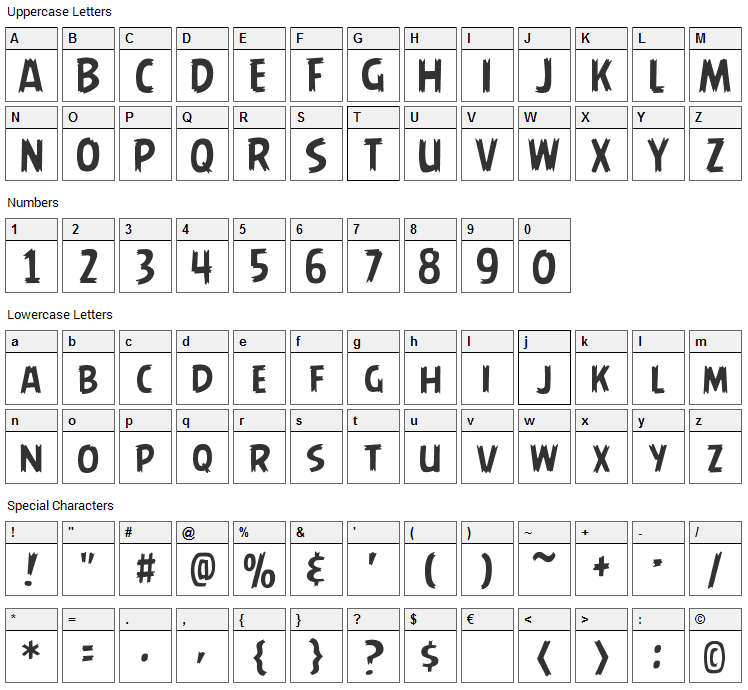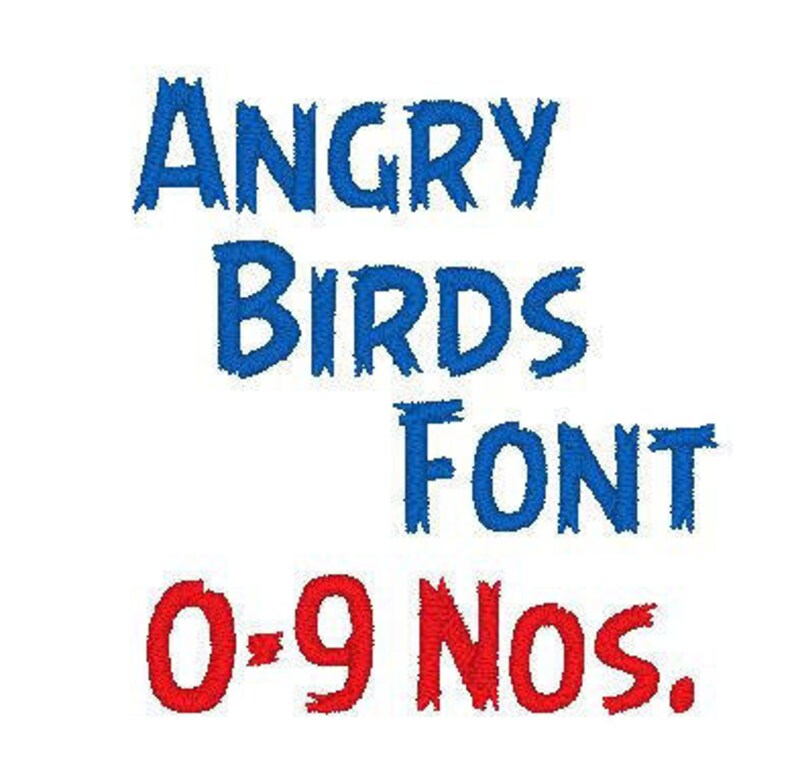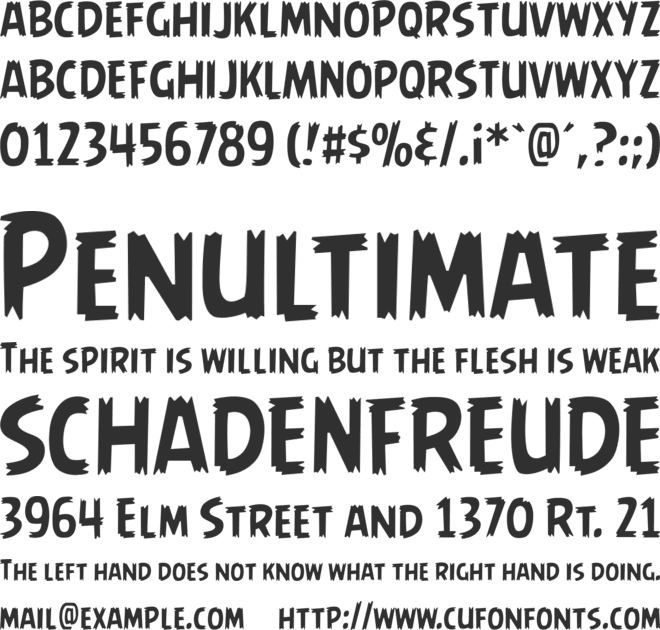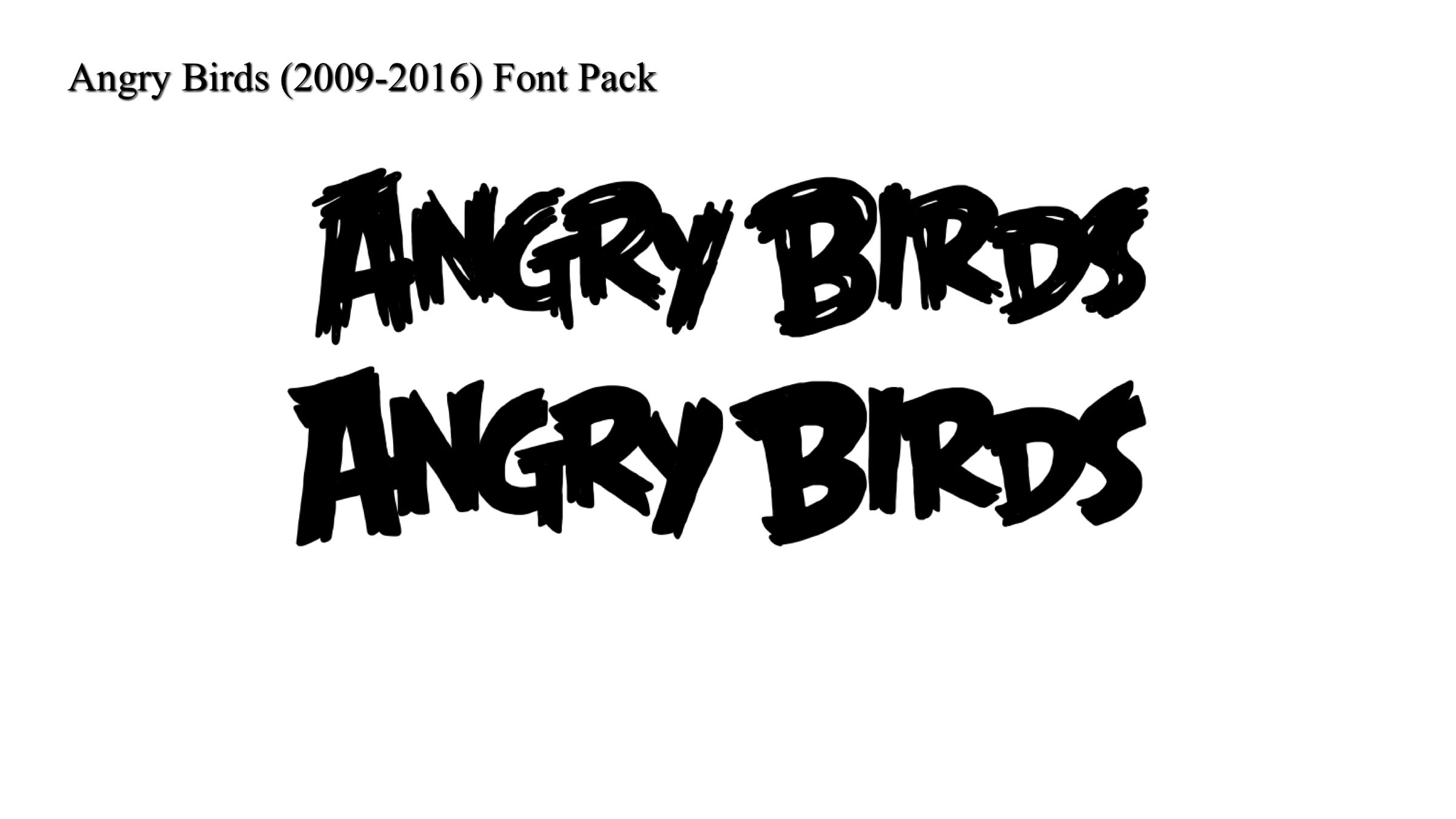
Angry Birds Font - The font is free to use and. Angry birds font | dafont.com english français español deutsch italiano português. The angry birds logo features an angry bird head and the logotype in comic style lettering, which resembles a font called “feast of flesh” designed by nate piekos in 2005. Download free angry birds fonts. You can generate your own custom designs based on the angry birds movies or the original video game by rovio. Discover and customize the font angry birds and other similar fonts, ready to share in facebook and twitter.
The angry birds logo features an angry bird head and the logotype in comic style lettering, which resembles a font called “feast of flesh” designed by nate piekos in 2005. Download free angry birds fonts. Angry birds font | dafont.com english français español deutsch italiano português. Discover and customize the font angry birds and other similar fonts, ready to share in facebook and twitter. You can generate your own custom designs based on the angry birds movies or the original video game by rovio. The font is free to use and.
The angry birds logo features an angry bird head and the logotype in comic style lettering, which resembles a font called “feast of flesh” designed by nate piekos in 2005. The font is free to use and. Download free angry birds fonts. Discover and customize the font angry birds and other similar fonts, ready to share in facebook and twitter. Angry birds font | dafont.com english français español deutsch italiano português. You can generate your own custom designs based on the angry birds movies or the original video game by rovio.
Angry Birds Movie font
Download free angry birds fonts. The font is free to use and. Angry birds font | dafont.com english français español deutsch italiano português. The angry birds logo features an angry bird head and the logotype in comic style lettering, which resembles a font called “feast of flesh” designed by nate piekos in 2005. Discover and customize the font angry birds.
The font is free to use and. The angry birds logo features an angry bird head and the logotype in comic style lettering, which resembles a font called “feast of flesh” designed by nate piekos in 2005. Discover and customize the font angry birds and other similar fonts, ready to share in facebook and twitter. You can generate your own.
Discover and customize the font angry birds and other similar fonts, ready to share in facebook and twitter. The angry birds logo features an angry bird head and the logotype in comic style lettering, which resembles a font called “feast of flesh” designed by nate piekos in 2005. You can generate your own custom designs based on the angry birds.
Download free angry birds fonts. Discover and customize the font angry birds and other similar fonts, ready to share in facebook and twitter. The font is free to use and. The angry birds logo features an angry bird head and the logotype in comic style lettering, which resembles a font called “feast of flesh” designed by nate piekos in 2005..
Angry birds font | dafont.com english français español deutsch italiano português. The angry birds logo features an angry bird head and the logotype in comic style lettering, which resembles a font called “feast of flesh” designed by nate piekos in 2005. Discover and customize the font angry birds and other similar fonts, ready to share in facebook and twitter. You.
Angry Birds Font
Angry birds font | dafont.com english français español deutsch italiano português. You can generate your own custom designs based on the angry birds movies or the original video game by rovio. The font is free to use and. Discover and customize the font angry birds and other similar fonts, ready to share in facebook and twitter. The angry birds logo.
Angry Birds font install Open Type + Angry Birds font SVG / Angry Birds
The angry birds logo features an angry bird head and the logotype in comic style lettering, which resembles a font called “feast of flesh” designed by nate piekos in 2005. The font is free to use and. Discover and customize the font angry birds and other similar fonts, ready to share in facebook and twitter. Download free angry birds fonts..
Angry Birds Font Generator
Download free angry birds fonts. The angry birds logo features an angry bird head and the logotype in comic style lettering, which resembles a font called “feast of flesh” designed by nate piekos in 2005. Angry birds font | dafont.com english français español deutsch italiano português. The font is free to use and. You can generate your own custom designs.
Angry Birds Movie Font FZ Fonts FontSpace
You can generate your own custom designs based on the angry birds movies or the original video game by rovio. Download free angry birds fonts. The angry birds logo features an angry bird head and the logotype in comic style lettering, which resembles a font called “feast of flesh” designed by nate piekos in 2005. Angry birds font | dafont.com.
Angry Birds (20092016) Font Pack by Charlieaat on DeviantArt
The angry birds logo features an angry bird head and the logotype in comic style lettering, which resembles a font called “feast of flesh” designed by nate piekos in 2005. You can generate your own custom designs based on the angry birds movies or the original video game by rovio. Angry birds font | dafont.com english français español deutsch italiano.
You Can Generate Your Own Custom Designs Based On The Angry Birds Movies Or The Original Video Game By Rovio.
The font is free to use and. Angry birds font | dafont.com english français español deutsch italiano português. The angry birds logo features an angry bird head and the logotype in comic style lettering, which resembles a font called “feast of flesh” designed by nate piekos in 2005. Discover and customize the font angry birds and other similar fonts, ready to share in facebook and twitter.